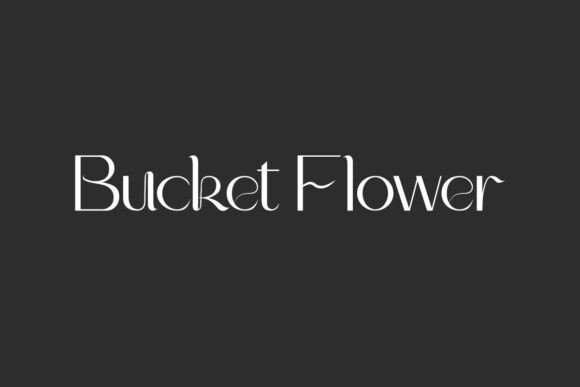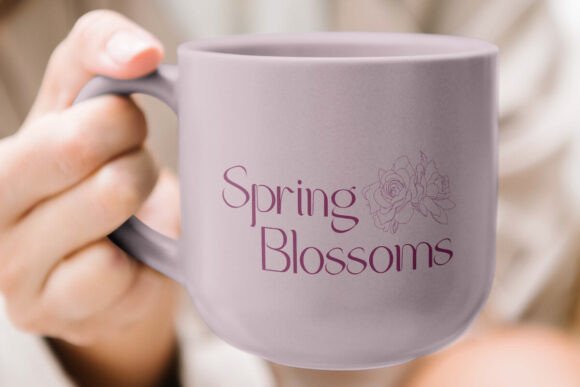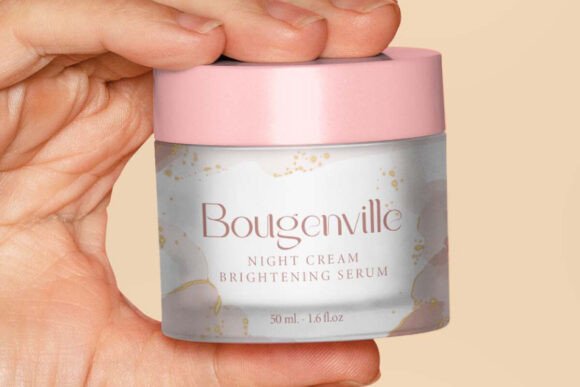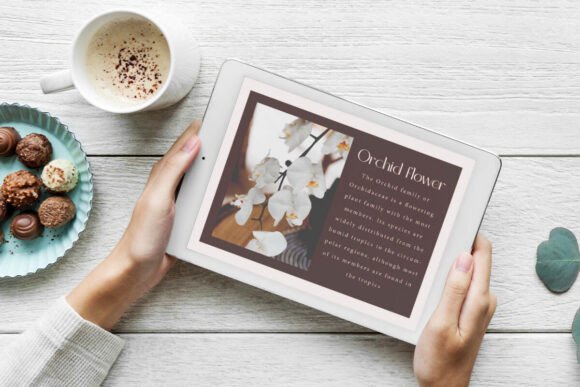
Bucket Flower Font
About the Bucket Flower Font
Add a touch of class to your work with the Bucket Flower Font, a truly exceptional typeface. Bucket Flower Font is a beautiful, sophisticated serif display font with a special curvy style. This font has wavy lines like a beautiful and romantic bunch of flowers. It will suit many designs, such as brand image, custom design, gift box, invitation, label, poster, product packaging, quote, signage, stationery, website page, and more!
Bucket Flower’s elegant curves make it ideal for headlines, short text blocks on posters or invitations, and branding elements requiring a touch of sophistication. It excels in packaging design for high-end products or luxury brands, adding a distinctive, romantic feel. However, its ornate style is less suitable for body text or UI elements where readability is paramount; the wavy forms could hinder legibility in extended passages.
Consider pairing Bucket Flower with a clean sans-serif like Lato or Open Sans for a balanced contrast; their neutrality will let the display font shine. For a more luxurious feel, a classic serif such as Garamond or a subtly geometric sans-serif such as Futura could also work well. Avoid pairing it with other highly decorative fonts, which might create visual clutter.
The font’s overall personality is refined and romantic, lending itself to projects that evoke feelings of luxury, grace, and delicate beauty. Brands focused on floral design, cosmetics, fashion, or fine dining would find it particularly effective.
Bucket Flower Font Usage Examples
Bucket Flower Font Example